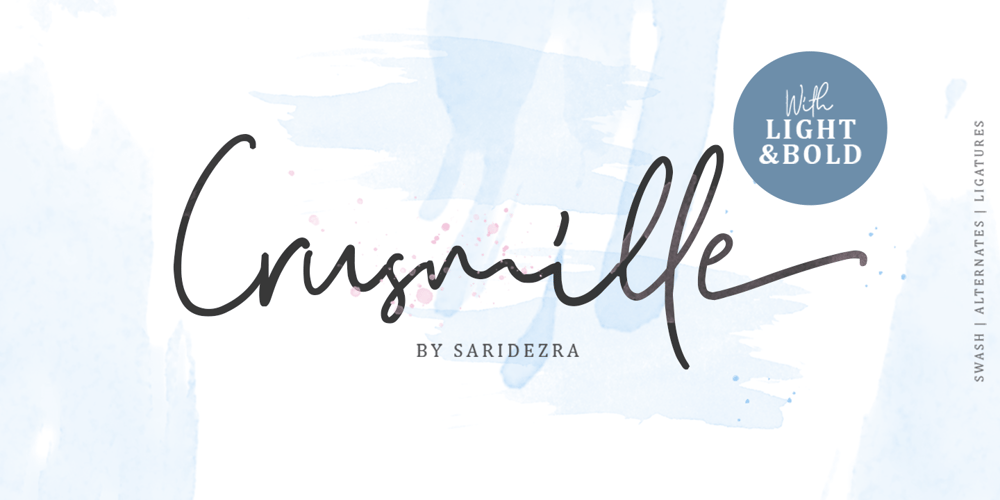
Crusmille
Crusmille font
Crusmille Font Family was designed by Sarid Ezra and published by Sarid Ezra. Crusmille contains 4 styles and family package options. Crusmille Script Family contain 6 FONTS including alternates, Ligatures, Swash, and also Underline. Camilla is a signature font that you can use to make a logo for branding, beautiful fashion design, or handwritten quote. Also already PUA Encoded.